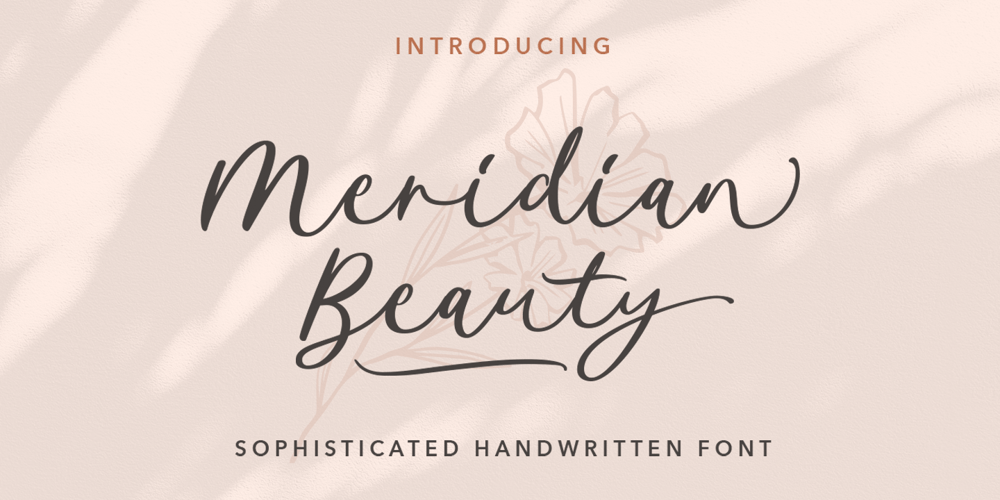
Meridian Beauty
Meridian Beauty Font Family was designed by Hendry Juanda and published by Letterhend. Meridian Beauty contains 1 styles and family package options. Meridian Beauty is a handwritten with clean and chic looks. The natural flow make this font looks like a real hand writing. This font perfectly made to be applied especially in logo, and the other various formal forms such as invitations, labels, logos, magazines, books, greeting / wedding cards, packaging, fashion, make up, stationery, novels, labels or any type of advertising purpose.Features : Uppercase & lowercase Numbers and punctuation Alternates & Ligatures Multilingual PUA encoded We highly recommend using a program that supports OpenType features and Glyphs panels like many of Adobe apps and Corel Draw, so you can see and access all Glyph variations.